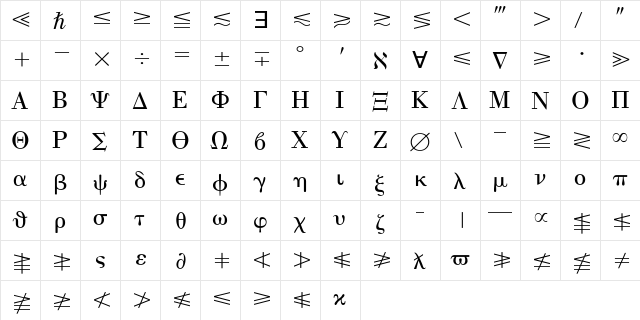
MathematicalPi 1 Regular
Design Context for MathematicalPi 1 Typeface
MathematicalPi 1 is a composed and adaptable typeface that performs quietly and consistently across a wide range of design contexts.